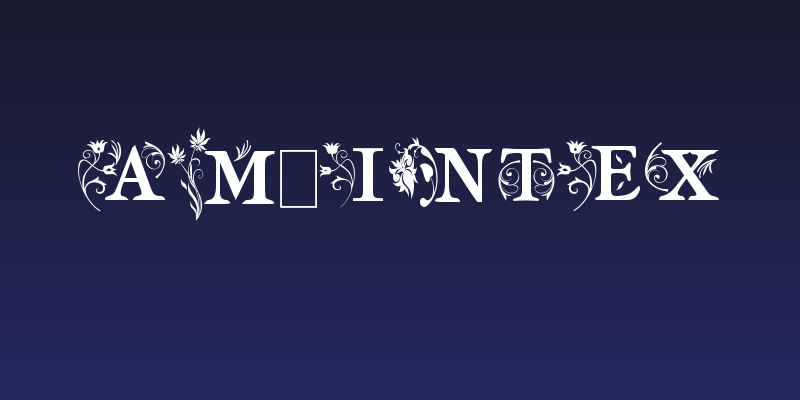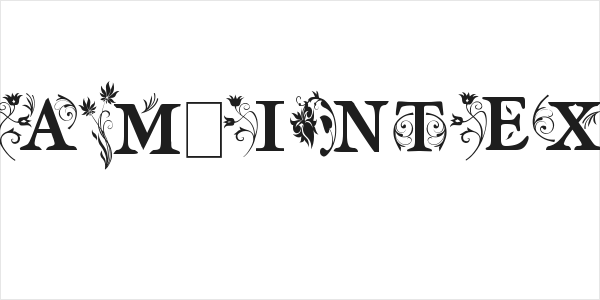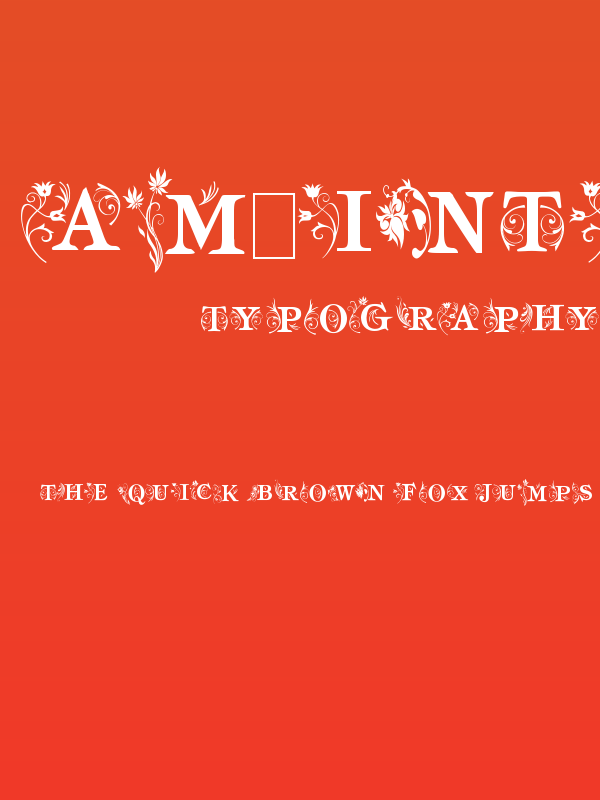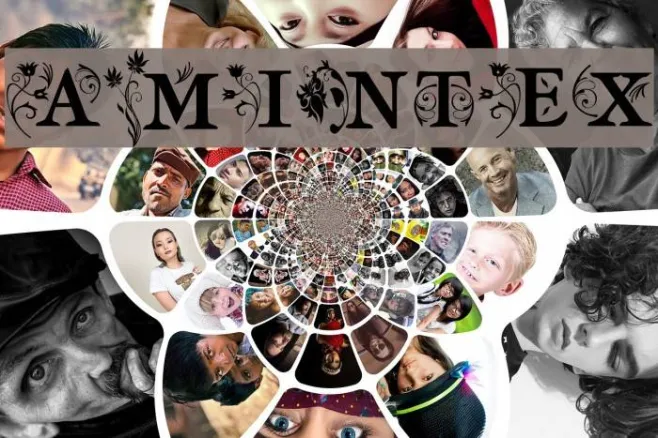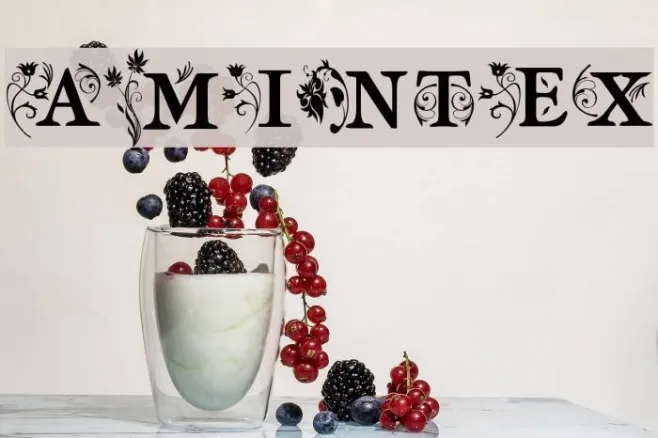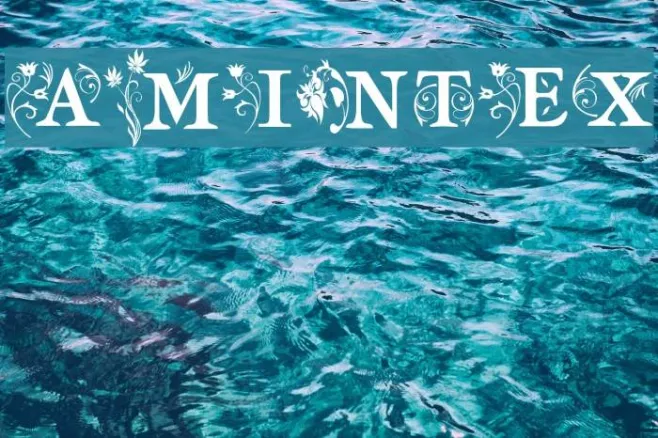
am_intex Font
am_intex Description
This font is a highly decorative and ornate typeface, characterized by intricate floral and vine-like embellishments that surround each letter. The uppercase letters are bold and striking, with each character featuring unique flourishes that give it a distinct, artistic appearance. The embellishments are symmetrical and add a sense of elegance and sophistication, making the font suitable for formal and decorative purposes. The overall design is reminiscent of vintage or classical styles, often seen in historical documents or invitations. The font does not include lowercase letters or numerals, focusing solely on the embellished uppercase alphabet.
| Proposed Projects | Ideal for wedding invitations, vintage-themed posters, or decorative signage. |